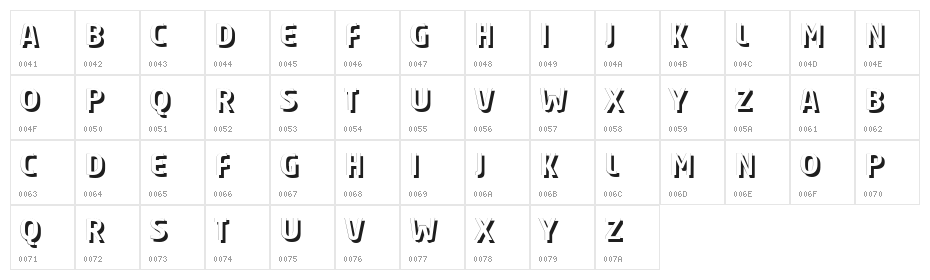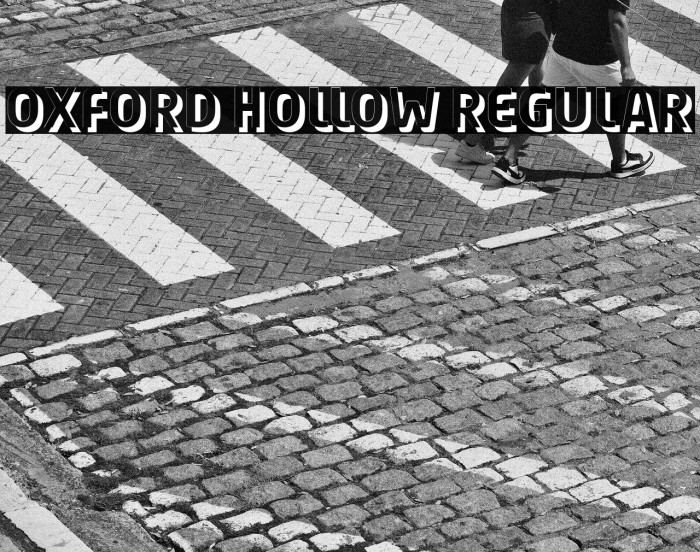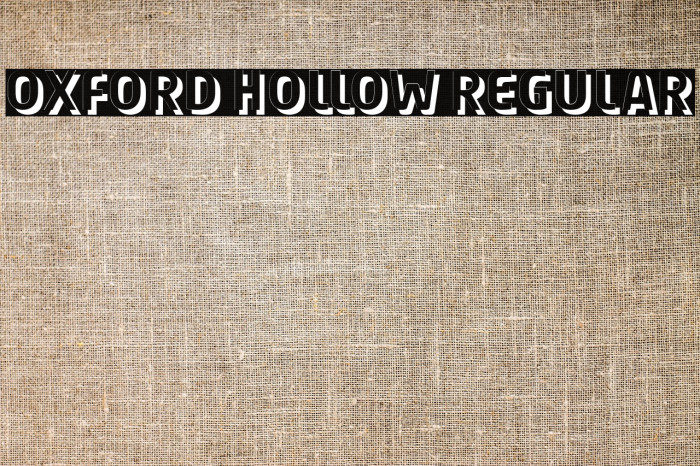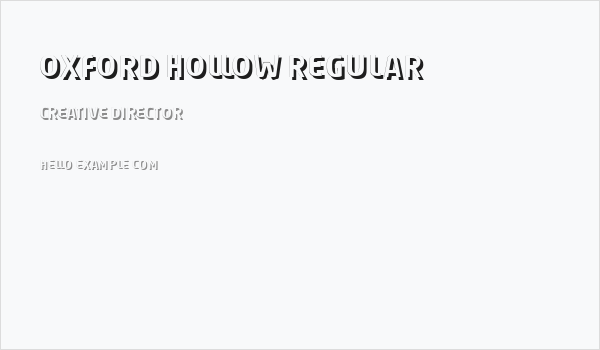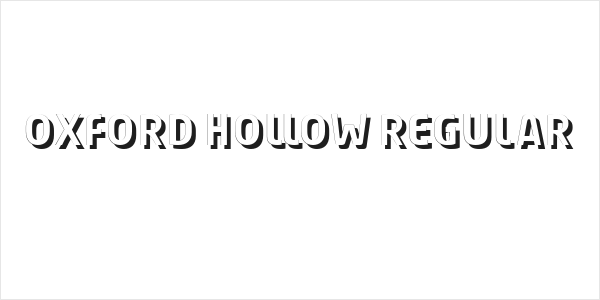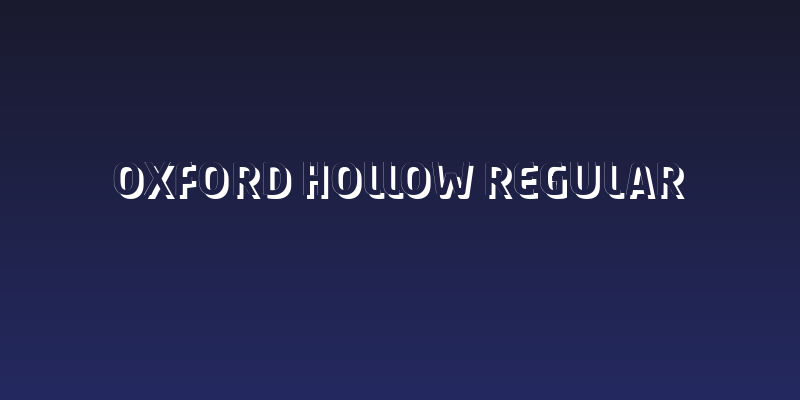
Oxford Hollow Regular Font
Oxford Hollow Regular Description
This font features a bold, hollow design with a strong, impactful presence. The uppercase letters are characterized by their thick outlines and hollow centers, creating a striking visual effect. The geometric structure of each letter is consistent, providing a modern and clean appearance. The font's style is reminiscent of classic display typefaces, yet it maintains a contemporary edge. The spacing between characters is balanced, ensuring readability while maintaining its decorative appeal. This font is ideal for making statements in headlines or logos, where a bold and eye-catching look is desired.
| Proposed Projects | Ideal for branding, poster design, headlines, and any project requiring a bold, attention-grabbing typeface. |